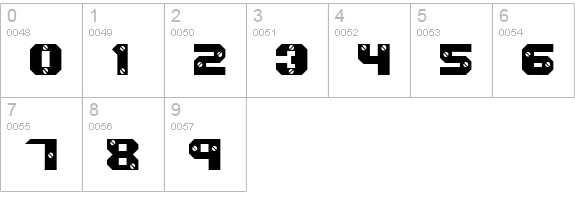
Screwed AOE Font Details
Introducing the captivating Screwed AOE font, a true masterpiece that is bound to leave a lasting impression on any design project. With its bold and edgy letterforms, this font exudes a sense of strength and confidence that will instantly grab attention. Screwed AOE is a versatile typeface that is perfect for a wide range of design applications. Whether you're working on a logo, branding materials, posters, or even web design, this font will effortlessly elevate your work to new heights. Its sharp angles and unique style make it stand out from the crowd, ensuring that your designs will be memorable and impactful. But what truly sets Screwed AOE apart is its accessibility - it is completely free to download at FontsMarket.com. This means that you can add this remarkable font to your collection without any cost or hassle. With just a few clicks, you can have access to a typeface that is sure to become a staple in your design arsenal. Screwed AOE is not your ordinary font. It is a statement. It is a bold choice. It is a font that demands attention and makes a lasting impression. So why settle for the mundane when you can embrace the extraordinary? Download Screwed AOE today and unleash the power of this remarkable typeface on your next design project.